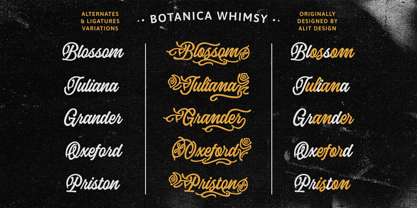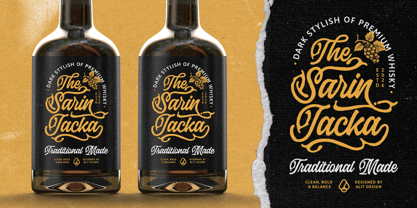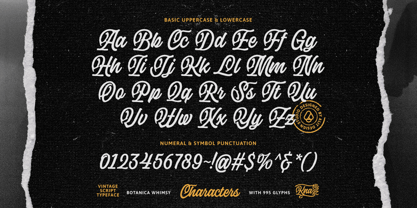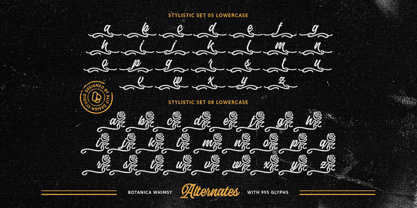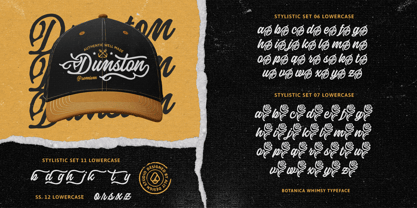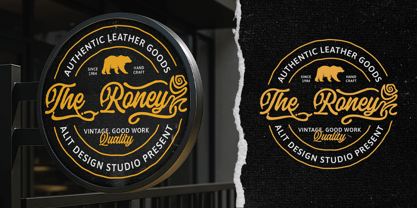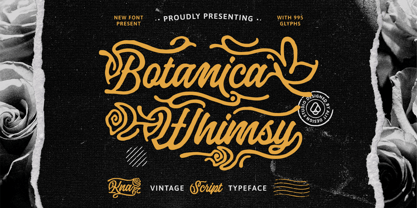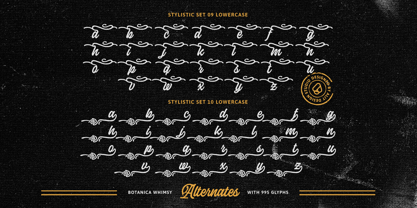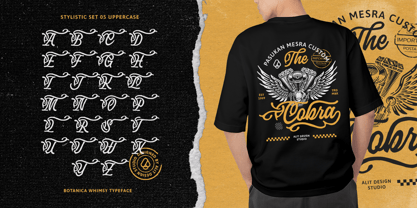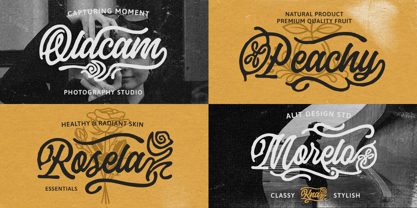
Botanica Whimsy
by Alit Design
The Botanica Whimsy Font Family was designed by Alit Suarnegara and published by Alit Design. Botanica Whimsy contains 1 styles. More about this family
Botanica Whimsy – A Charming Serif with Organic Elegance Elevate your designs with Botanica Whimsy, a beautifully crafted serif typeface that strikes a perfect balance between timeless sophistication and organic warmth. Inspired by the soft curves of nature and the rhythmic flow of botanical illustrations, this font brings a touch of magic and character to any creative project. Botanica Whimsy features unique, fluid strokes and delicate details that make it feel alive. Whether you are aiming for a high-end editorial look or a cozy, handcrafted feel, this typeface adapts seamlessly while maintaining its distinct "whimsical" personality. What’s Included? A Complete Character Set: Full uppercase and lowercase letters, numerals, and extensive punctuation. Elegant Ligatures: Carefully designed character pairings to enhance the flow and beauty of your typography. Multilingual Support: Ready for global reach with support for various accents and languages. Perfect For: Branding & Logos: Create a memorable identity for florists, wellness brands, or boutique studios. Editorial Design: Beautiful for magazine headers, quotes, and book covers. Packaging: Add an artisanal touch to organic products, skincare, or stationery. Social Media: Make your posts stand out with a font that feels personal and high-end. Bring the essence of a secret garden to your canvas with Botanica Whimsy. Let your creativity bloom!
Designers: Alit Suarnegara
Foundry: Alit Design